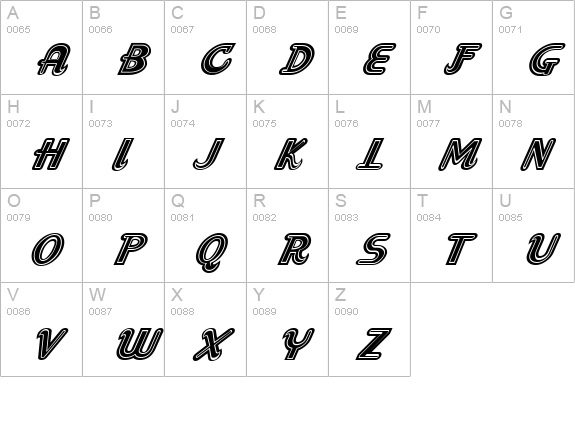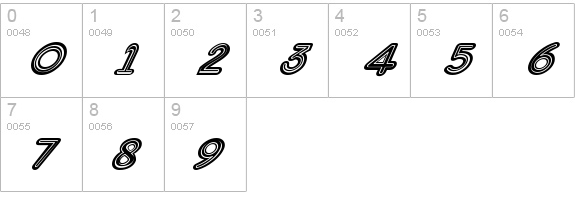
Snoozie Font Details
Introducing Snoozie, a captivating font that will add a touch of whimsy and charm to your designs. With its playful curves and elegant strokes, Snoozie is perfect for any project that calls for a touch of personality and creativity. This delightful font is not only visually stunning, but also incredibly versatile. Whether you're designing a logo, creating eye-catching headlines, or crafting invitations for a special event, Snoozie will effortlessly elevate your work to new levels of sophistication. One of the most remarkable things about Snoozie is that it is absolutely free. That's right - this incredible font can be yours without spending a dime. Simply head over to FontsMarket.com and download Snoozie today to unlock a world of creative possibilities. With its wide range of weights and styles, Snoozie offers endless combinations to suit your every need. Whether you prefer a bold and impactful look or a more delicate and refined aesthetic, this font has got you covered. Its versatility knows no bounds, making it the perfect choice for designers, artists, and creatives of all kinds. But Snoozie isn't just visually stunning - it's also incredibly easy to use. With its clean and legible characters, this font ensures that your message will be effortlessly communicated to your audience. Whether you're designing for print or digital, Snoozie guarantees a flawless reading experience. So why wait? Download Snoozie for free at FontsMarket.com and start adding a touch of magic to your designs today. Whether you're a seasoned professional or just starting out, this font is sure to become a beloved addition to your creative toolkit. Don't miss out on the opportunity to bring your vision to life with Snoozie - the possibilities are endless.